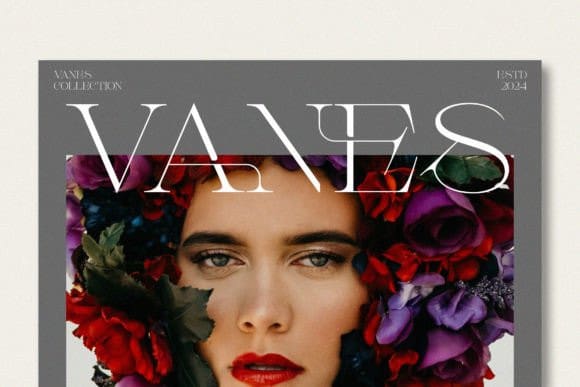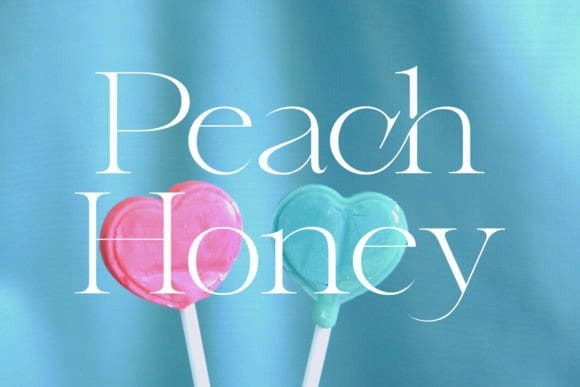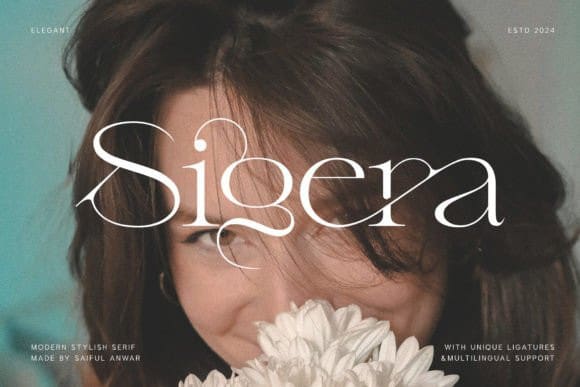
Sigera Font
Sigera Font, a serif font that embodies luxury and cinematic elegance. Perfectly tailored for sophisticated and high-end designs, Sigera adds a touch of class and refinement to any project.
Luxury Design: A luxurious serif style ideal for upscale and sophisticated projects.
Cinematic Appeal: Perfect for film titles, movie posters, and dramatic visual content.
Versatile Usage: Suitable for branding, editorial layouts, elegant invitations, and more.
Inspirational Previews: Includes sample designs to inspire your creative projects.
Elevate your designs with Sigera Font, the luxury serif font that exudes sophistication and style. Whether for high-end branding, cinematic projects, or elegant typography, Sigera adds a timeless and refined touch to your work. Make a statement with Sigera and let your designs shine with unparalleled elegance.